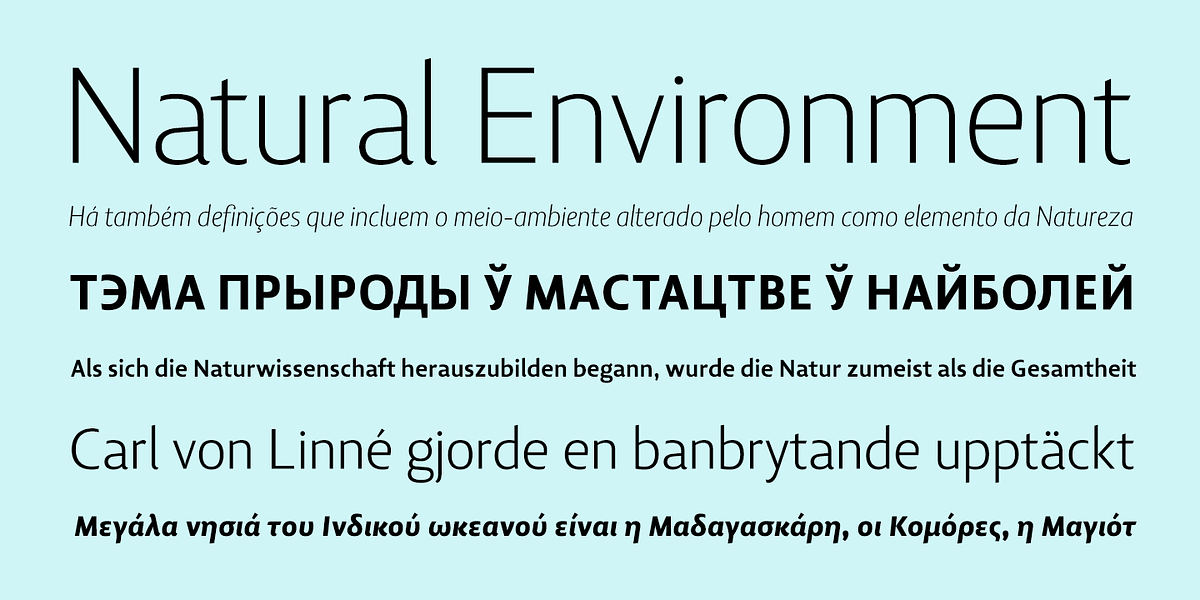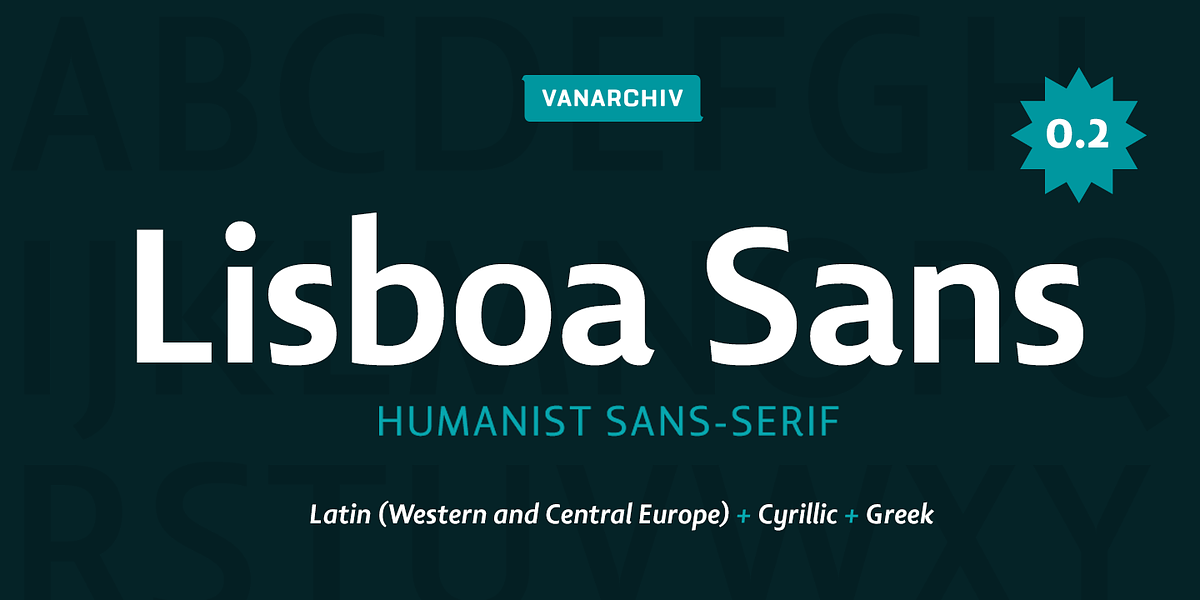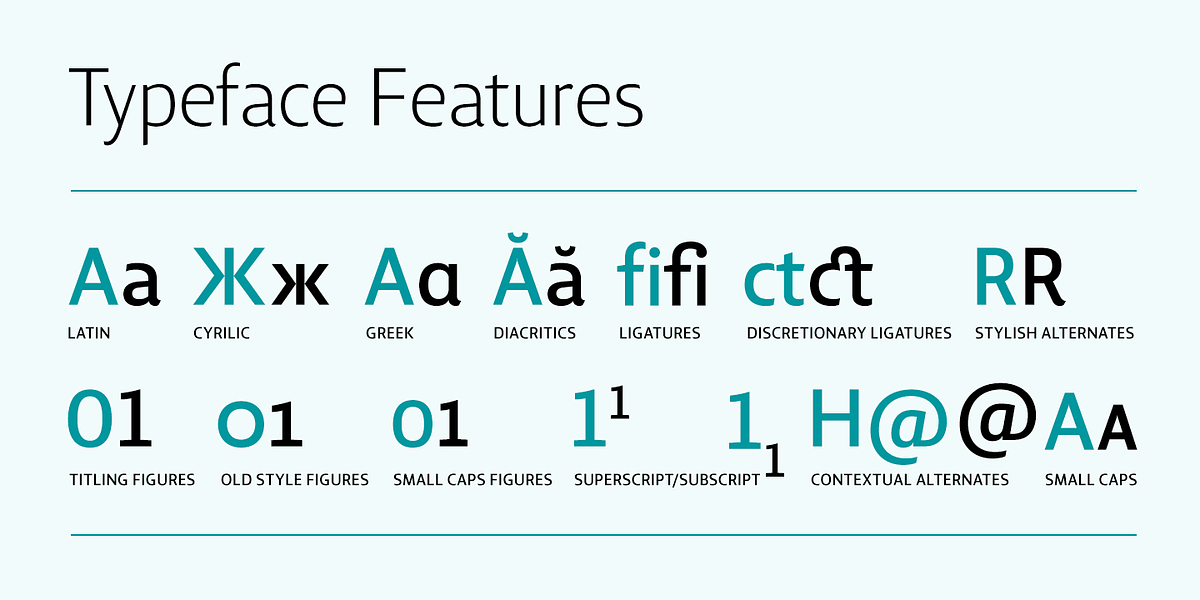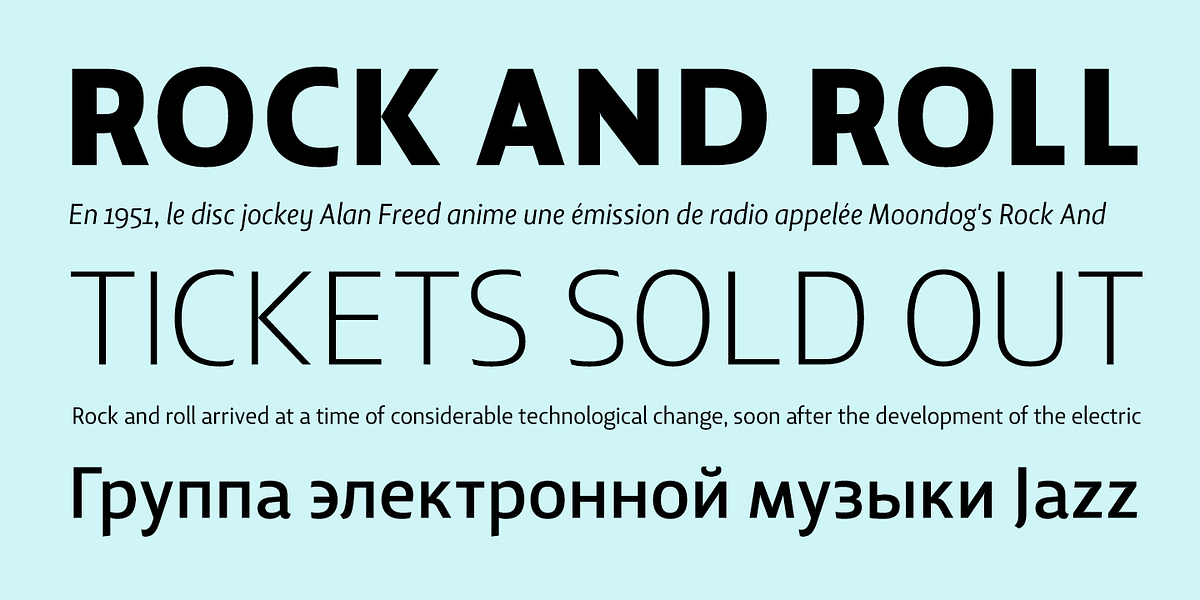
Lisboa Sans
Lisboa Sans is a humanist sans-serif font designed for readability. Its simple letterforms and open design contribute to its clarity at small sizes. The ample x-height further enhances legibility. The font family supports Latin, Cyrillic, and Greek alphabets.